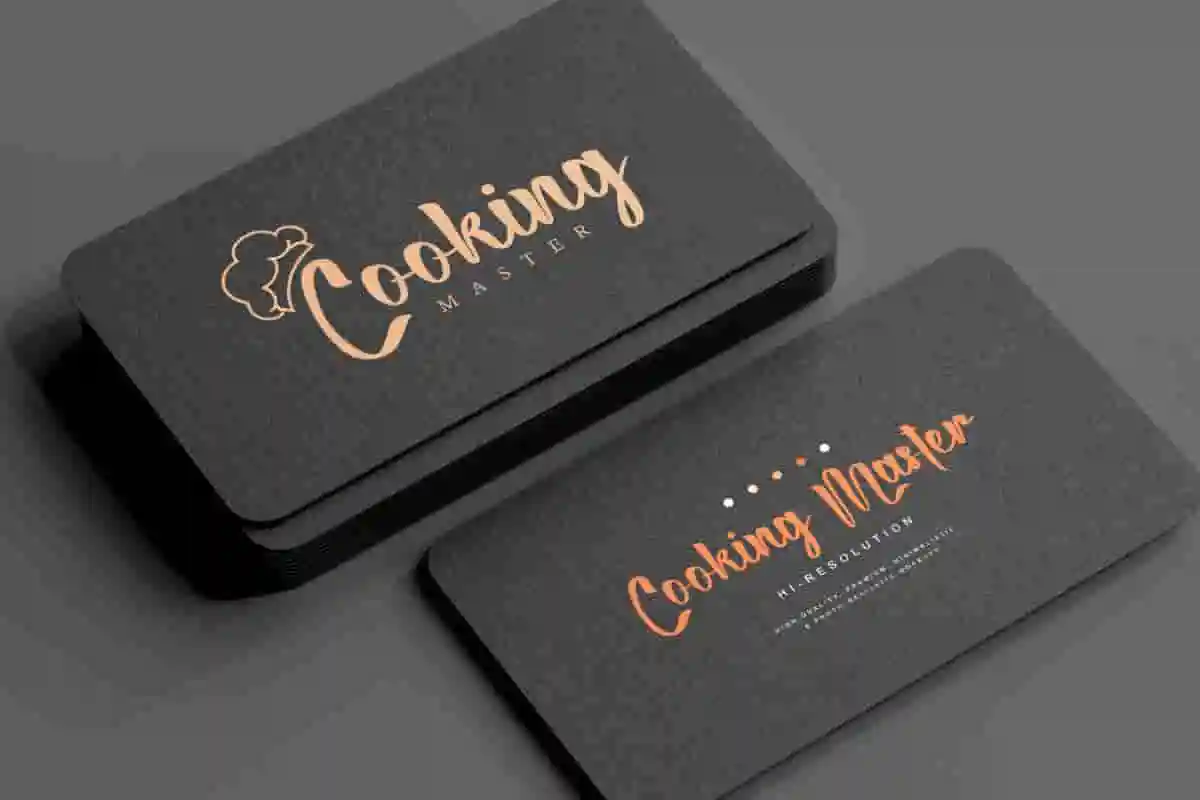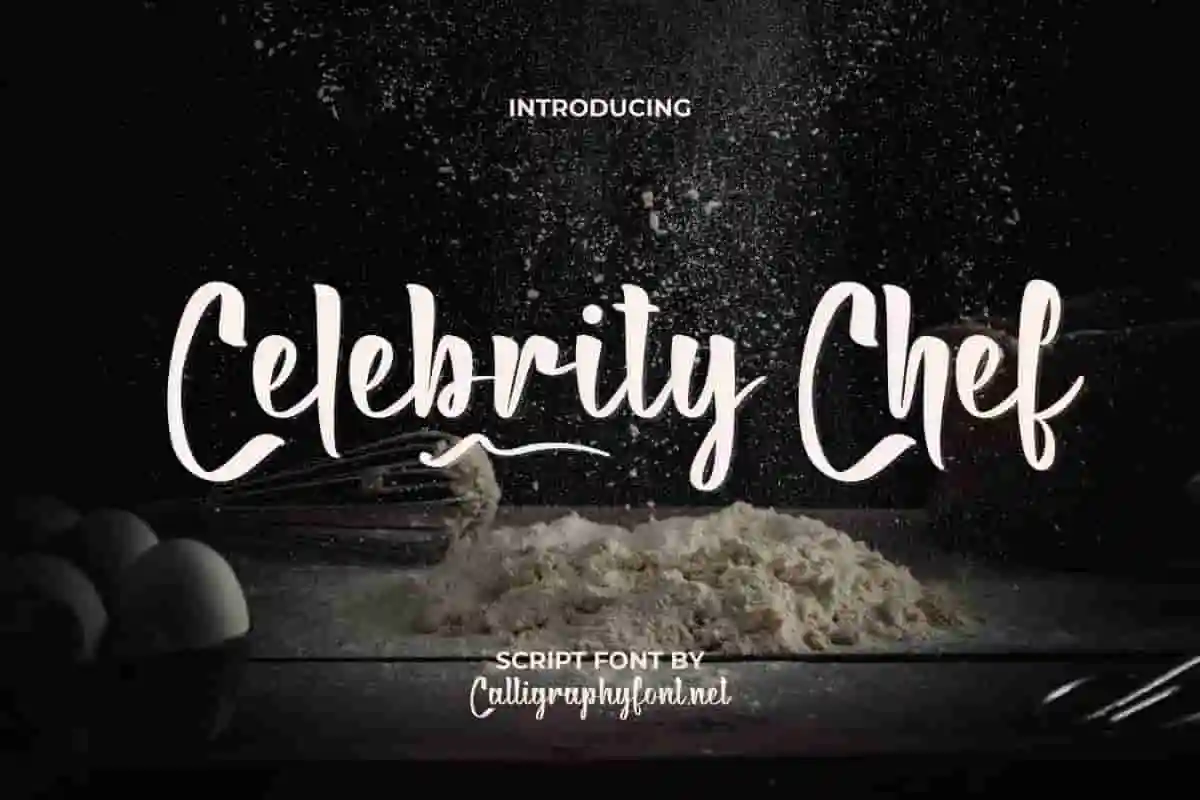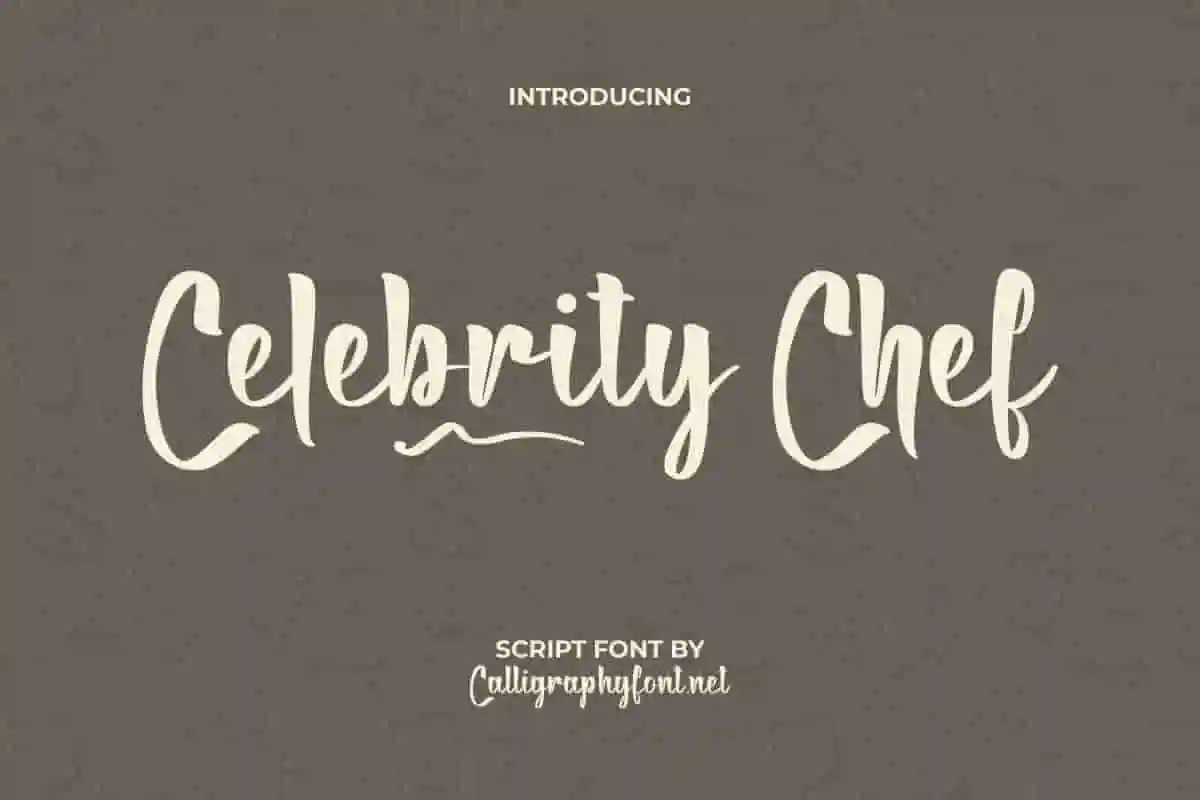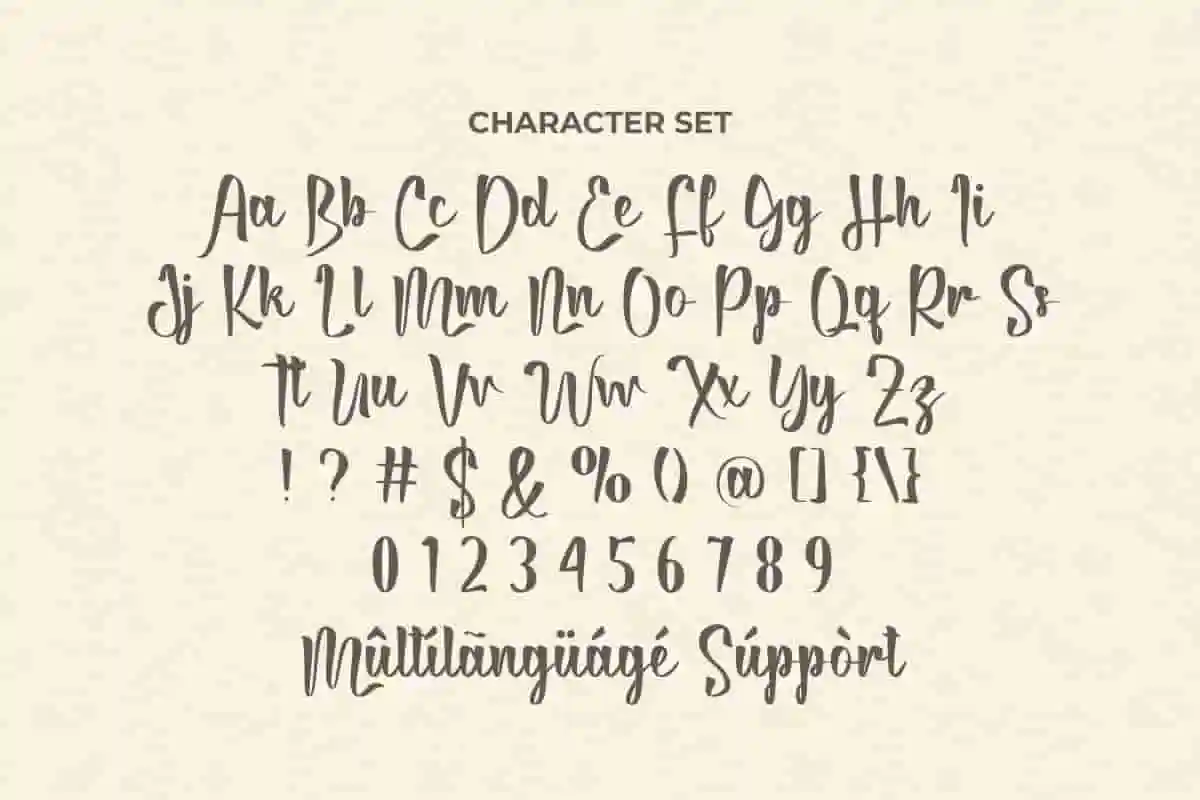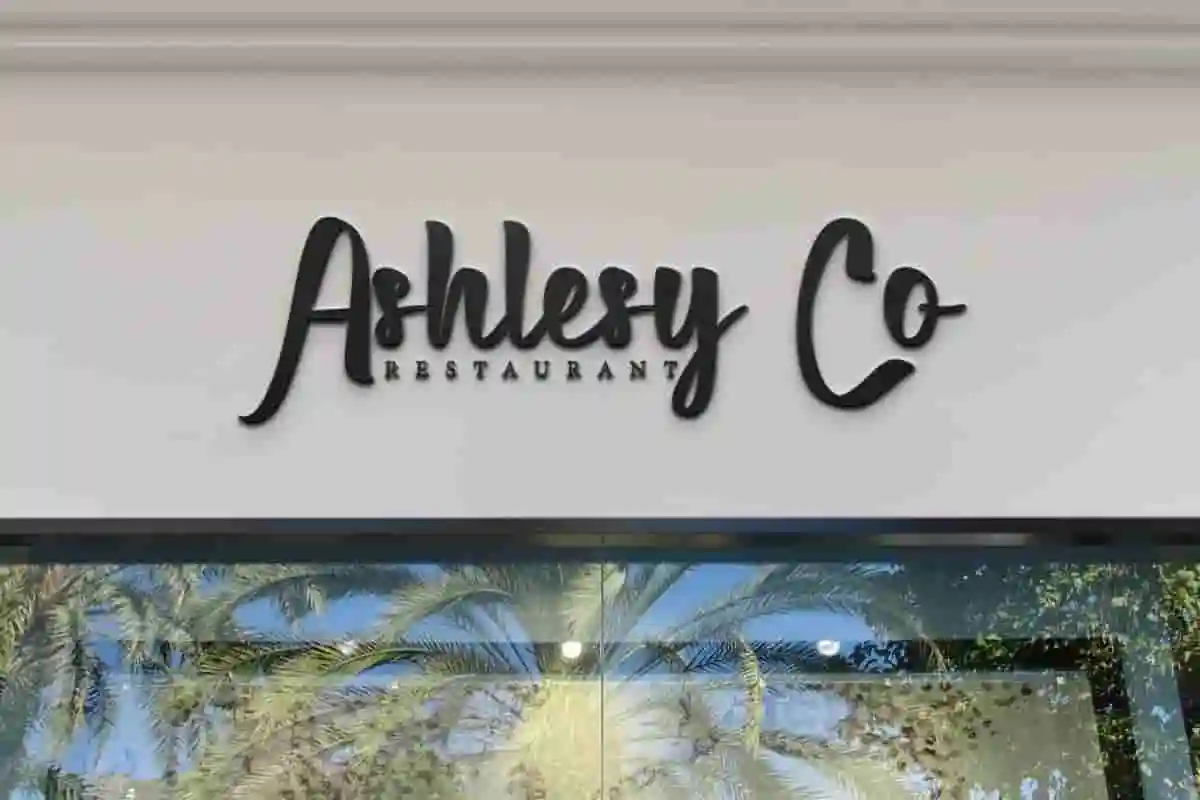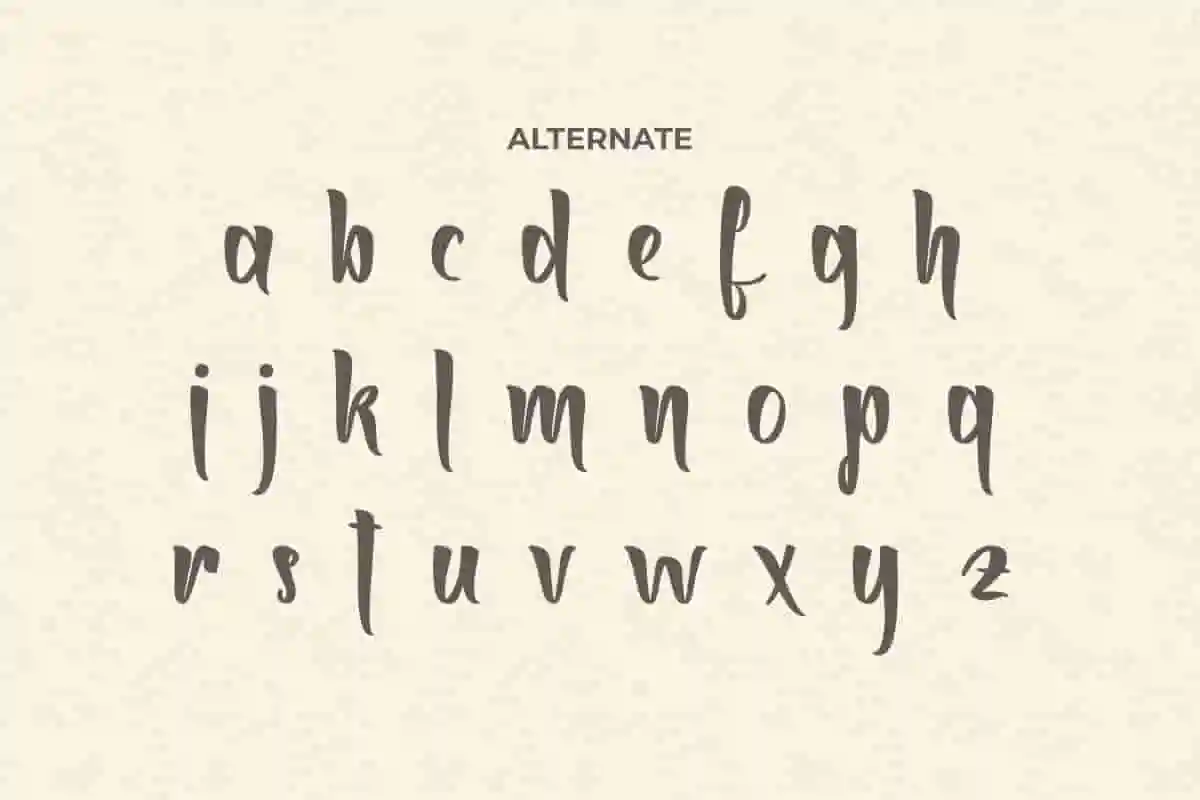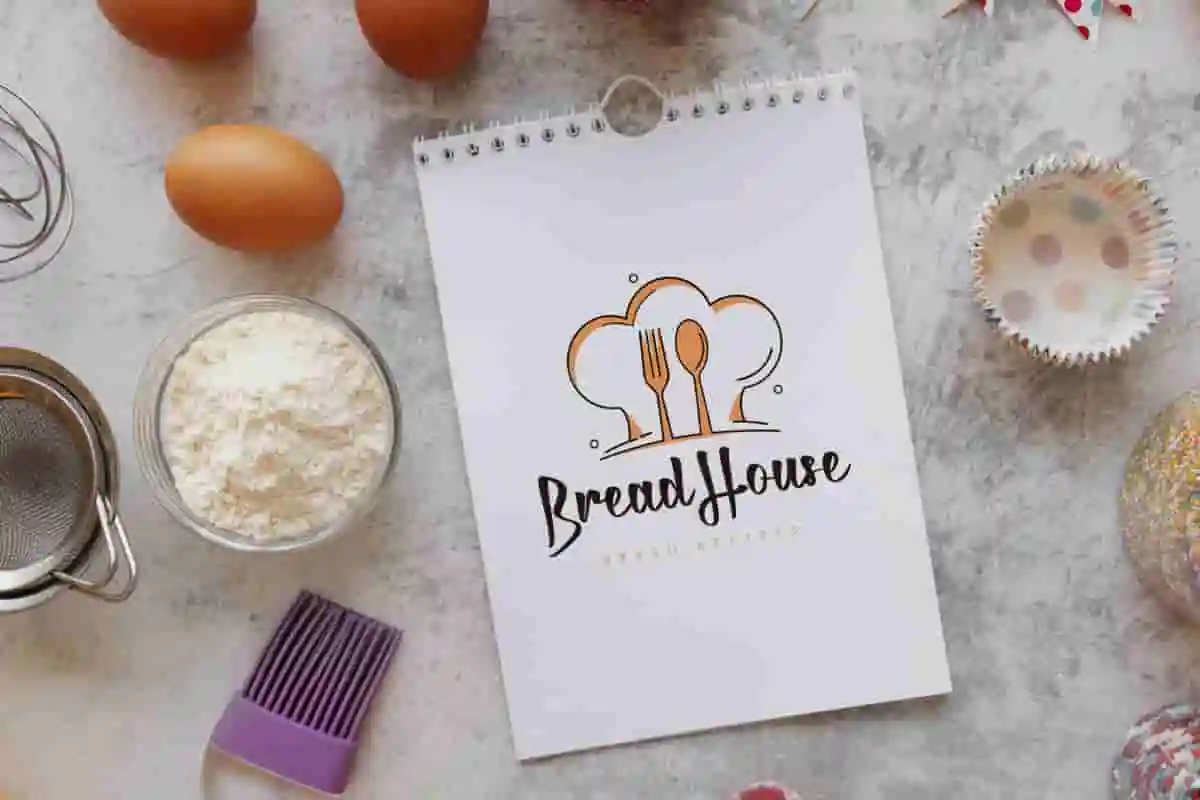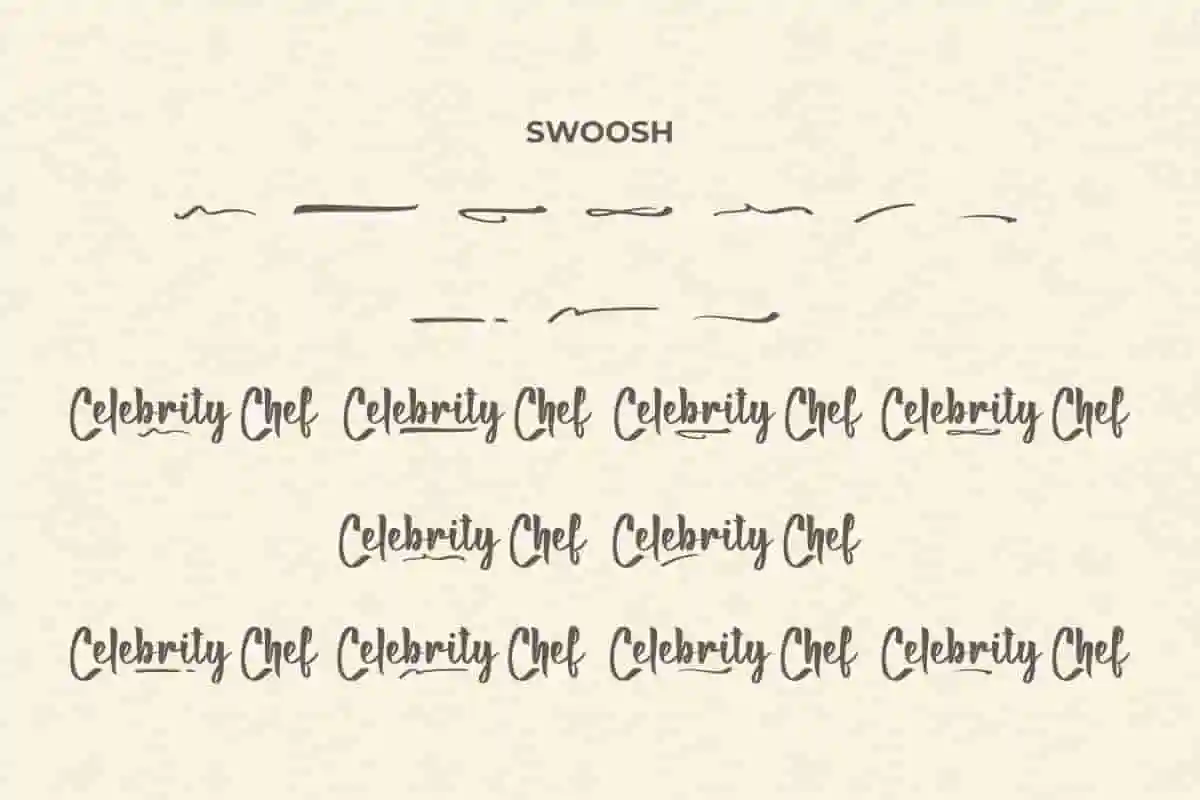
Celebrity Chef Font
Celebrity Chef Font is a casual brush script font from CalligraphyFonts.net. The font is simple and easy to read so it’s suitable for bakery brands, cafe, blog, heading, menu, pastry, restaurant, signage, stationery, or simply use it in your background writing or marketing titles.
Celebrity Chef Font is a stylish handwriting script, created by CalligraphyFonts.net. This type of script is modern style and also has a thick thin irregular brush that makes it unique and stands out will go well for your creative projects such as billboard, brand logo, business card, company sign, headline, label, menu, quotes, recipe book, web page, etc.
Bring a taste of elegance and personality to your designs with Celebrity Chef Font – a stylish, modern typeface inspired by the artistry of gourmet cooking and the flair of professional chefs. This unique display font blends playful charm with sophisticated design, making it the ideal ingredient for menus, cookbooks, restaurant branding, and any creative project that craves flavor and style.
With its bold yet friendly strokes, Celebrity Chef Handwriting Font captures attention instantly. Each letter is carefully crafted to reflect a sense of warmth, creativity, and confidence – just like a signature dish from a top chef. Whether you’re designing café signage, packaging for artisanal goods, or digital content for food blogs, this font will add the perfect seasoning to your project.
If your project needs a dash of creativity, a pinch of charm, and a full serving of elegance, Celebrity Chef Handwriting Font will serve it perfectly. It’s more than just a typeface – it’s a flavor your audience will remember.
Celebrity Chef Handwriting Font will be great for any industry including : bakery, café, cooking class, craft, fashion, restaurant, and everything that needs a touch of charming handwritten. Carefully crafted so as to create perfection in the writing and add aesthetics to every design made, easy to read with stunning look.
Celebrity Chef Handwriting Font comes with a full set of Uppercase and Lowercase Basic Characters, Number, a large range of Punctuation and Symbol, Alternate, Swoosh, and also supports multilingual characters. Ready to use both on Windows machine or Mac with simple installations. It’s tested to work well in the Adobe Apps (Illustrator, Adobe InDesign, Adobe Photoshop) CorelDraw, and others. PUA Encode Characters means you can access all the glyphs and swashes with ease – Fully accessible without additional design software.